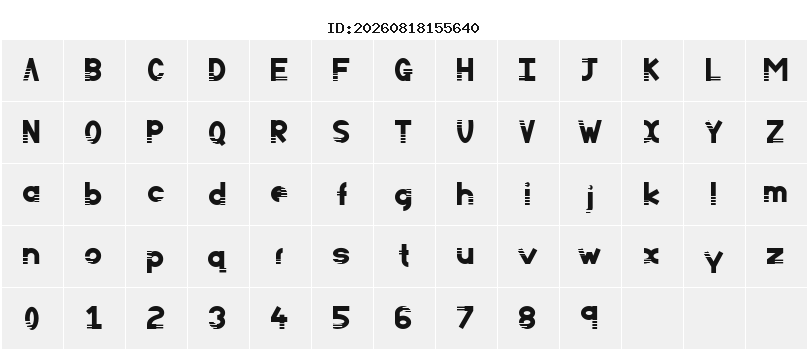
Sliding Scissors 101 Preview
• Font Name: Sliding Scissors 101
• Full Font Name: Sliding Scissors 101
About Sliding Scissors 101.ttf
Sliding Scissors 101.ttf is a modern, elegant sans-serif font designed for ultimate readability and visual harmony. Perfect for branding, headlines, web design, and print materials.